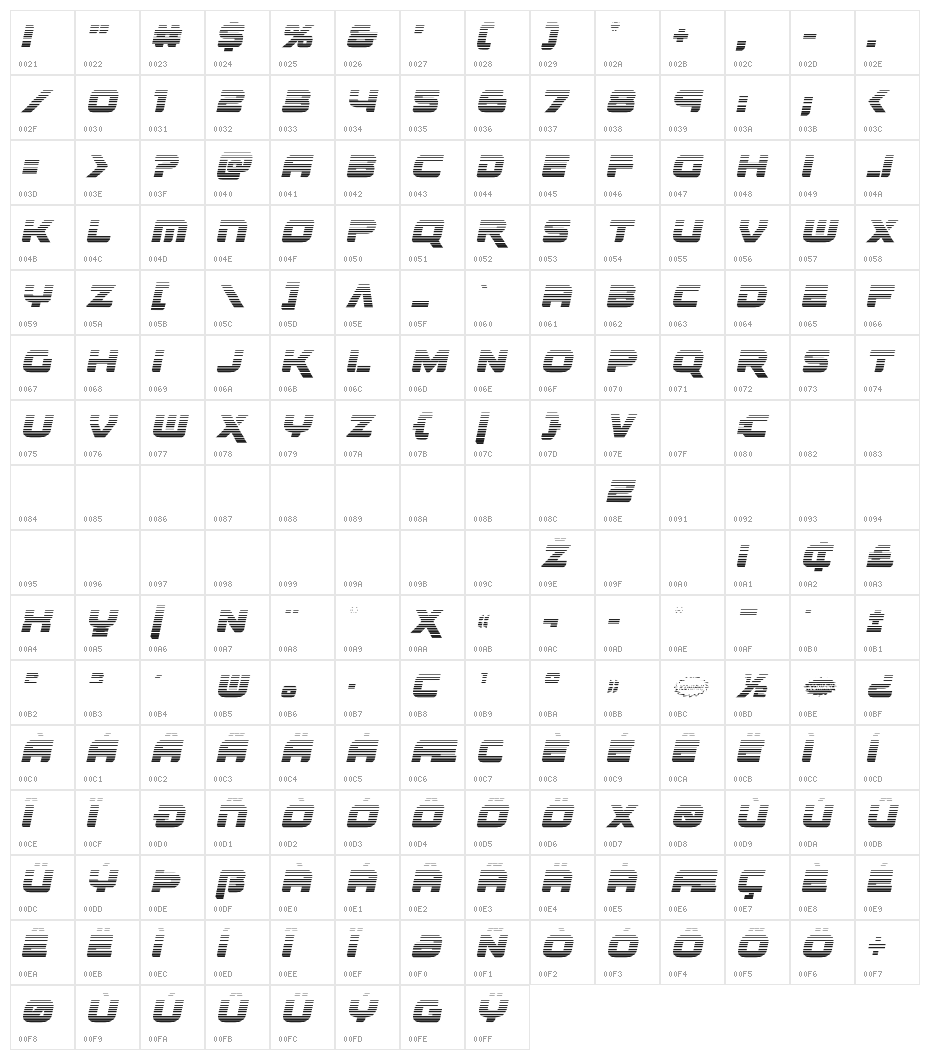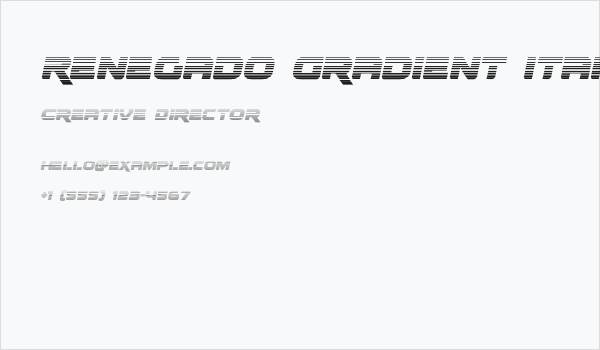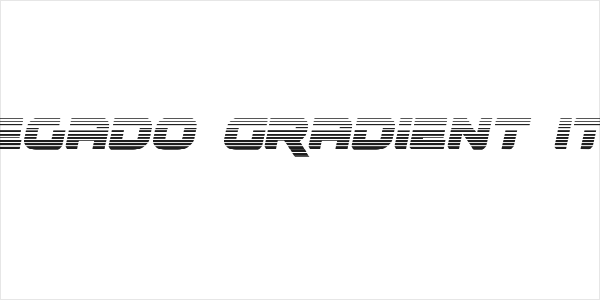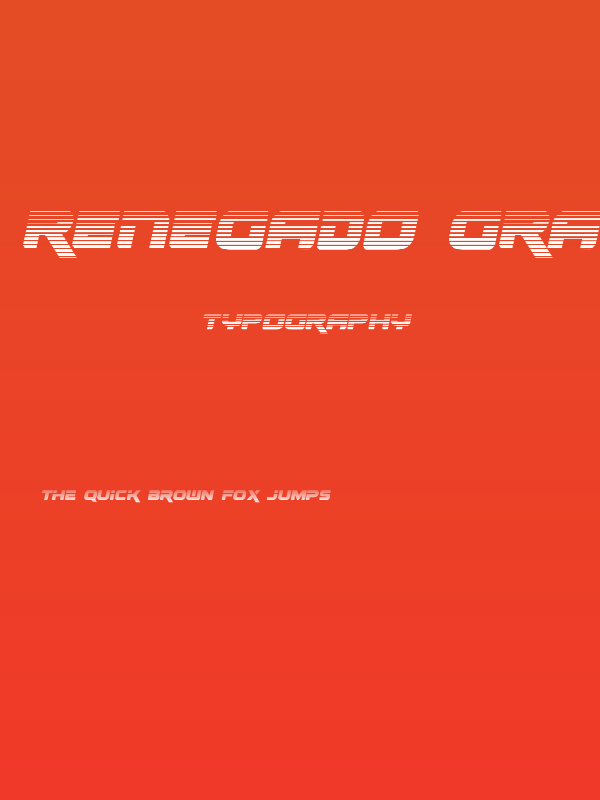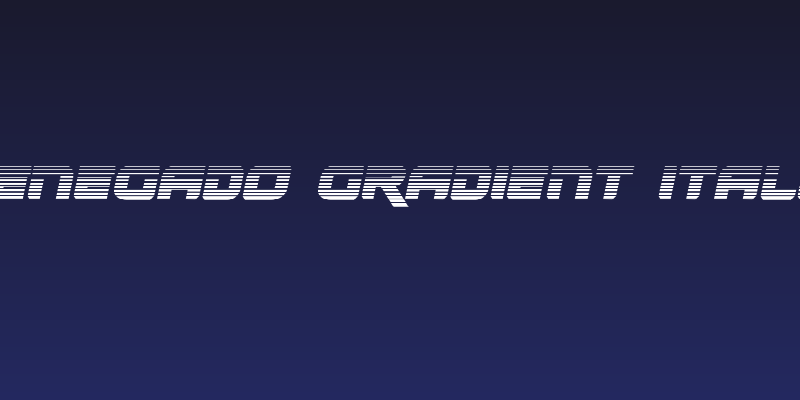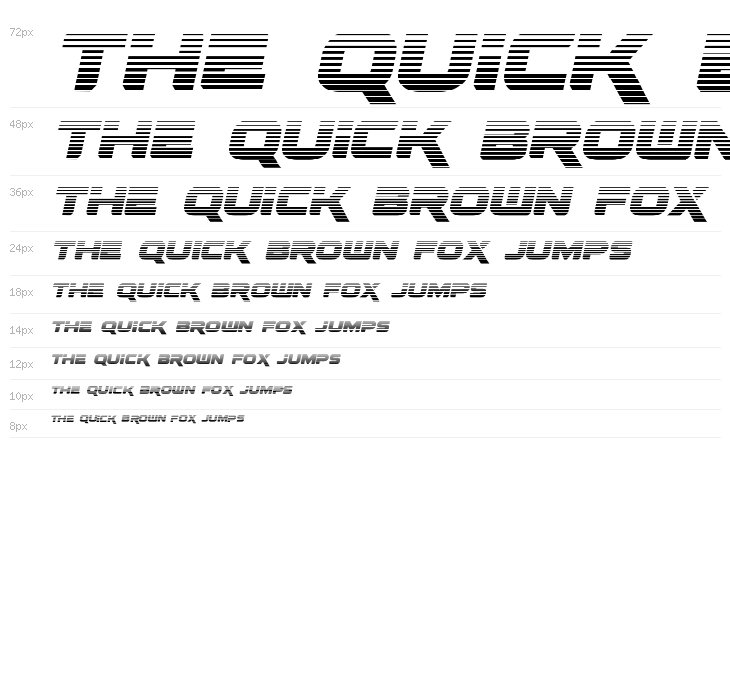
Renegado Gradient Italic Font
Renegado Gradient Italic Description
This font features a bold, italicized style with a distinctive gradient effect created by horizontal lines running through each character. The design gives a sense of movement and modernity, making it stand out with its unique visual appeal. The uppercase and lowercase letters maintain a consistent width, while the numbers and special characters follow the same stylistic approach. The overall appearance is dynamic and futuristic, suitable for projects that require a strong and eye-catching typeface.
| Proposed Projects | Ideal for futuristic branding, sports team logos, tech-related designs, and dynamic posters. |